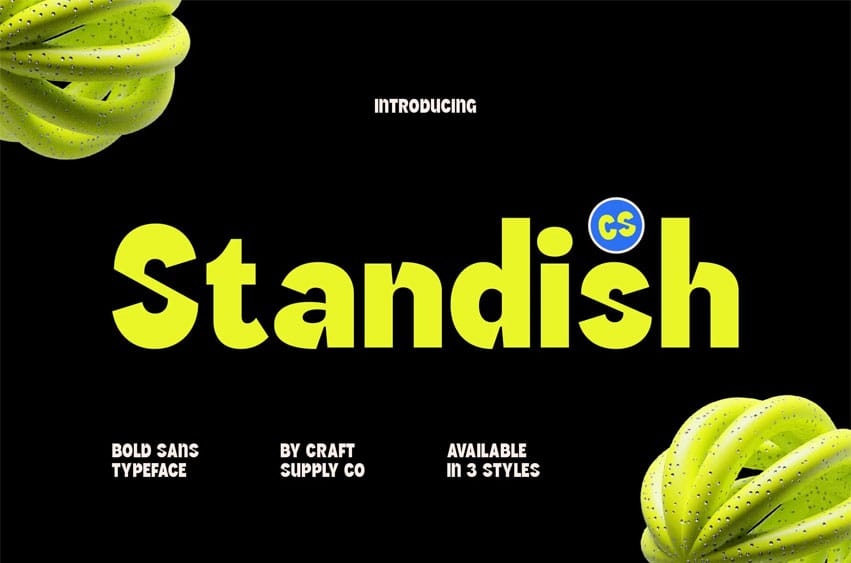
Standish Font Modern Simplicity with a Grotesque Edge. Bold Sans Serif with Contemporary Style. This is a modern sans-serif font defined by bold, clean, and structured lines. Its contemporary design brings a sense of confidence and clarity to any layout, making it perfect for projects that demand both precision and personality. Every curve and stroke is crafted to create a visual balance between strength and simplicity.
Grotesque Influence for Character and Versatility. Inspired by classic grotesque fonts, this font carries subtle humanist details that add warmth to its modern form. This blend of geometric precision and organic rhythm gives the typeface a distinctive, versatile character ideal for designers who appreciate functionality paired with style.
Clean Design for Maximum Impact. The strong, even strokes and consistent spacing make this font a standout choice for bold typography. It communicates clearly while maintaining a refined, professional tone, ensuring that every word leaves a lasting impression.
Perfect for Modern Branding and Creative Use. This font shines in logos, posters, branding, and editorial projects that call for a sleek, contemporary look. Its modern sans-serif construction and grotesque-inspired personality make it adaptable across various design aesthetics, whether you’re building a cutting-edge brand or crafting minimalist visual statements.